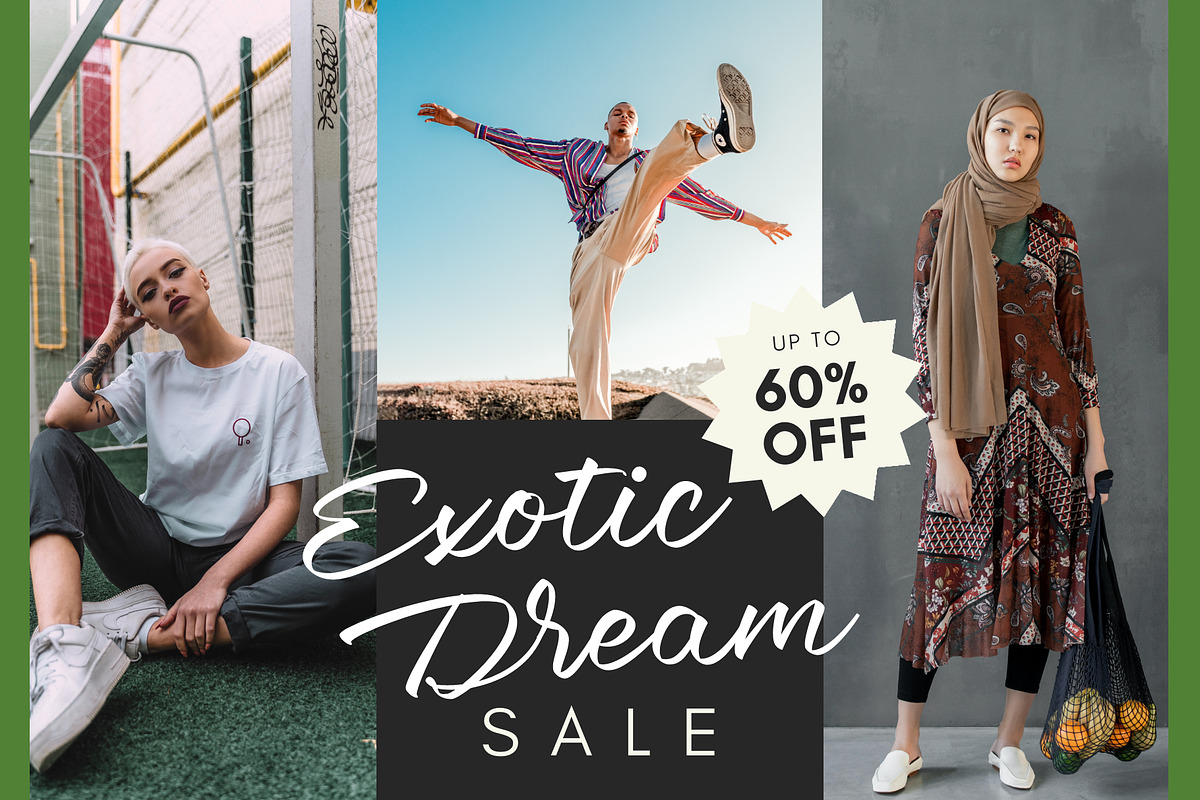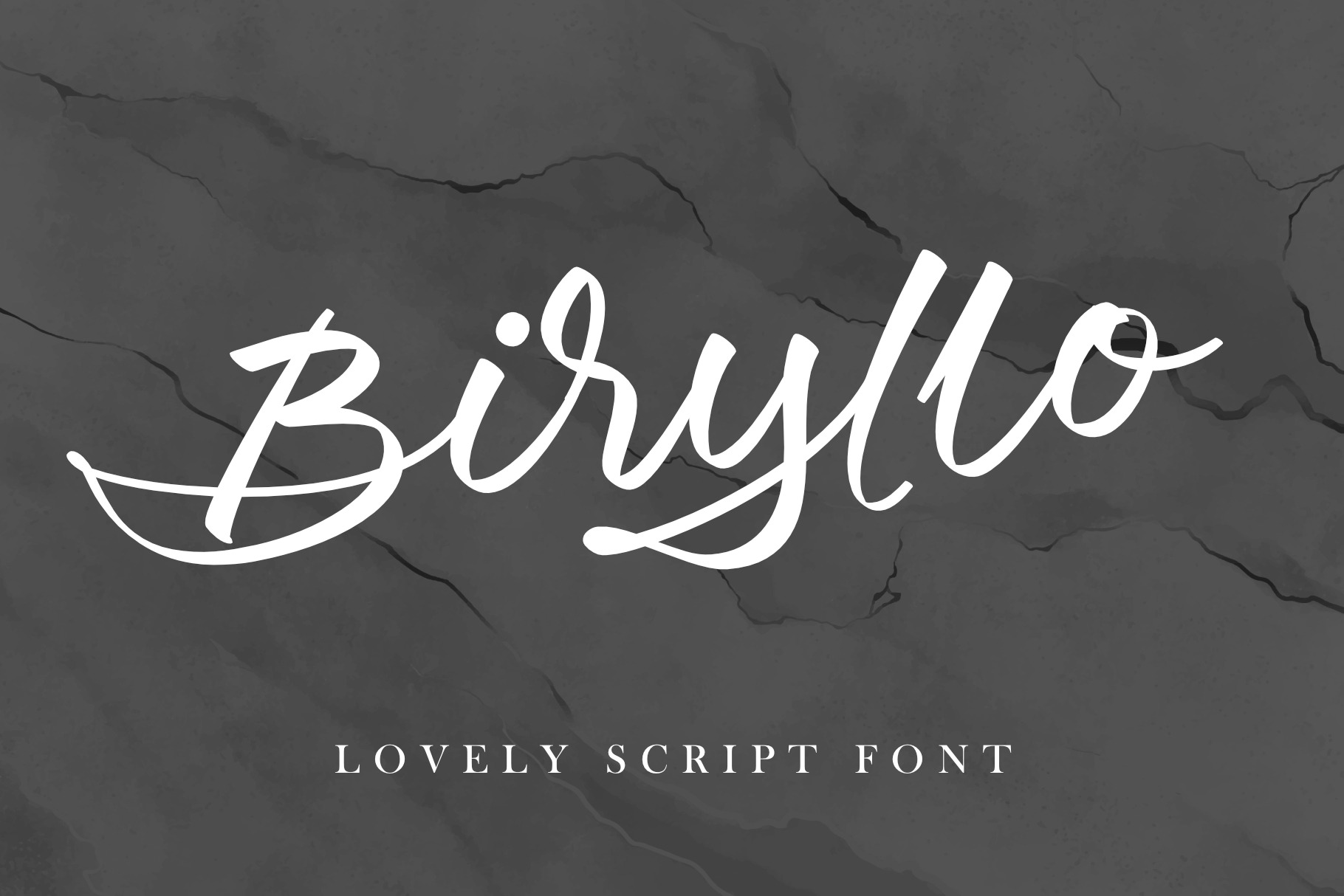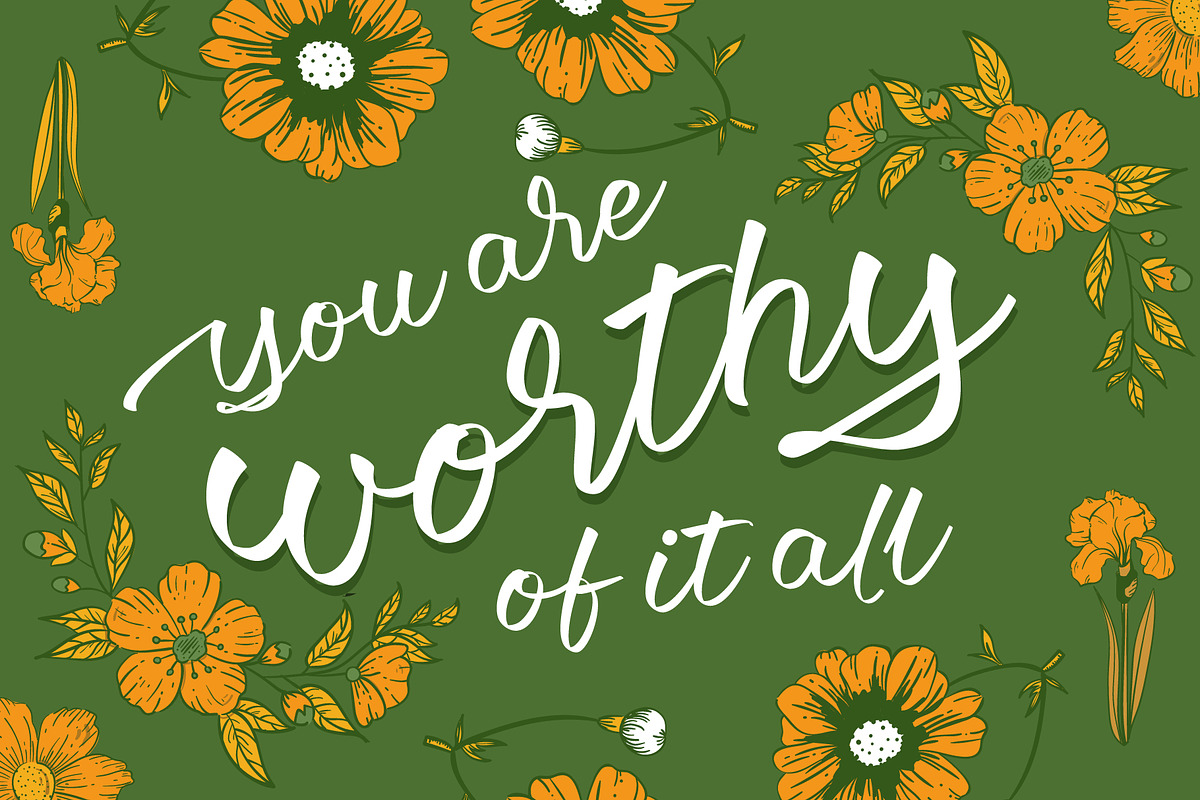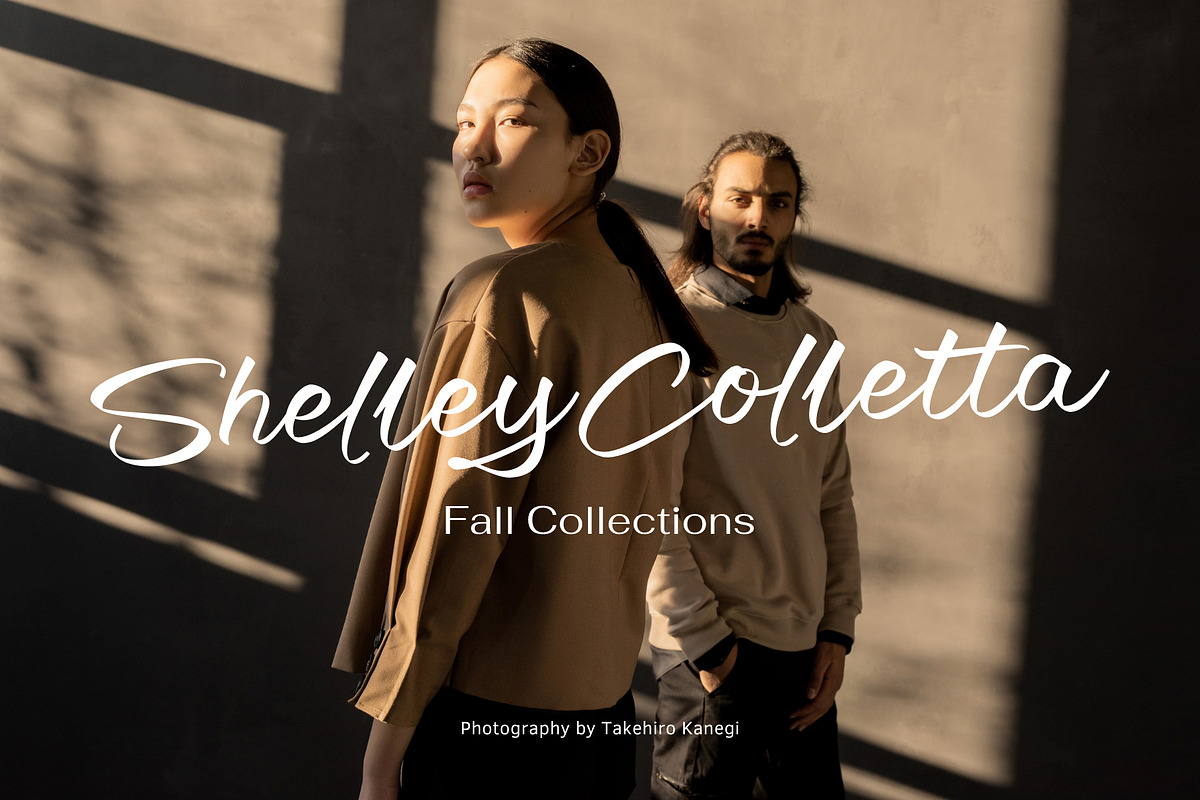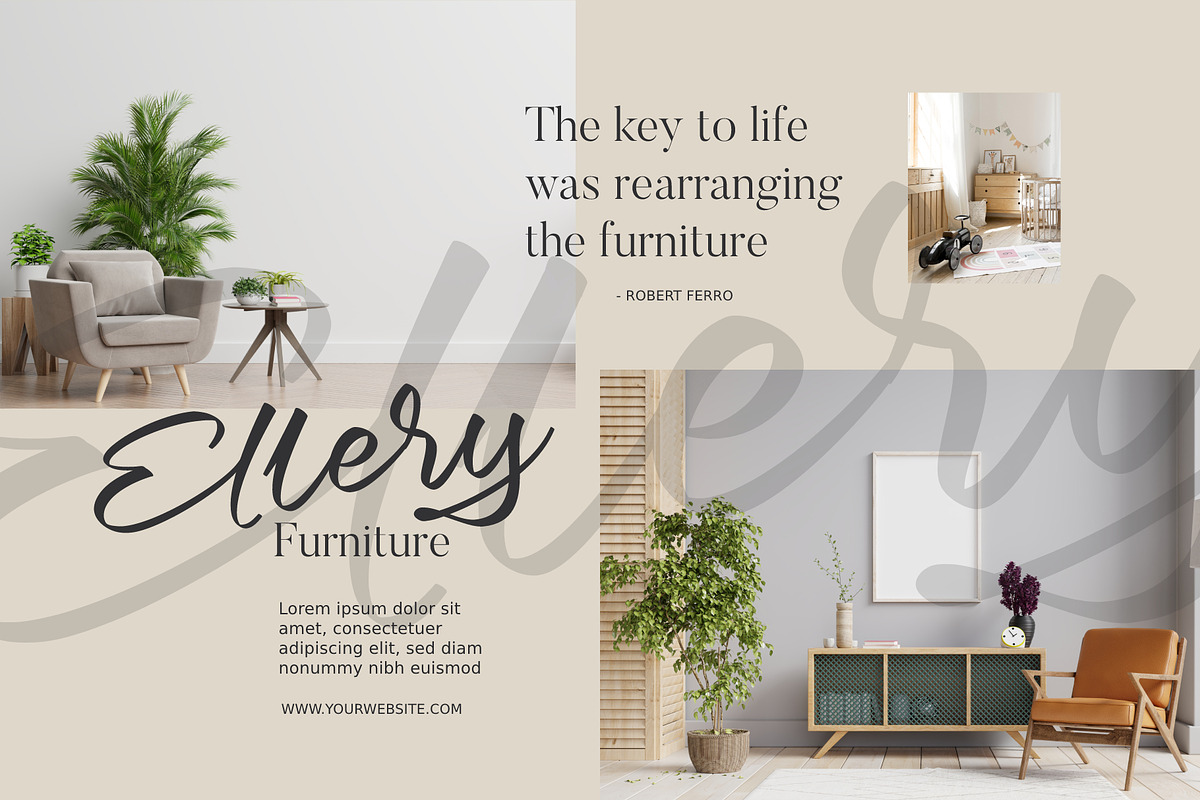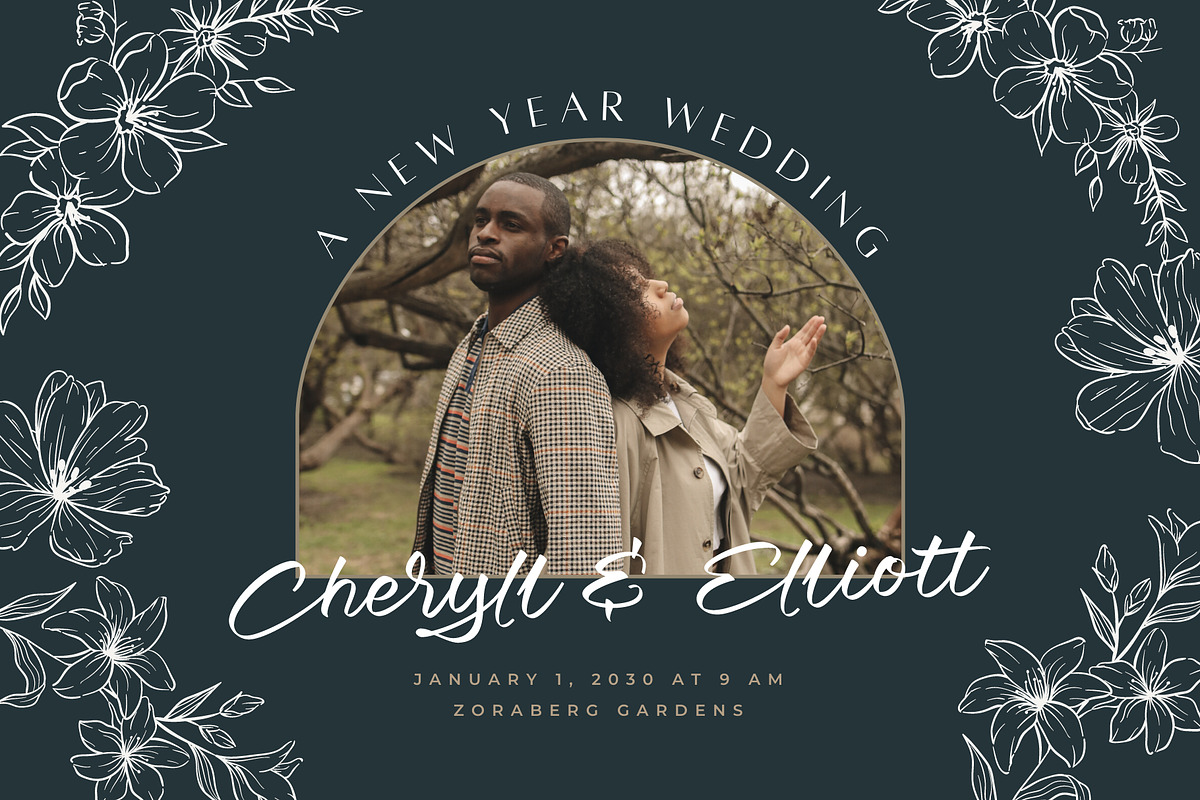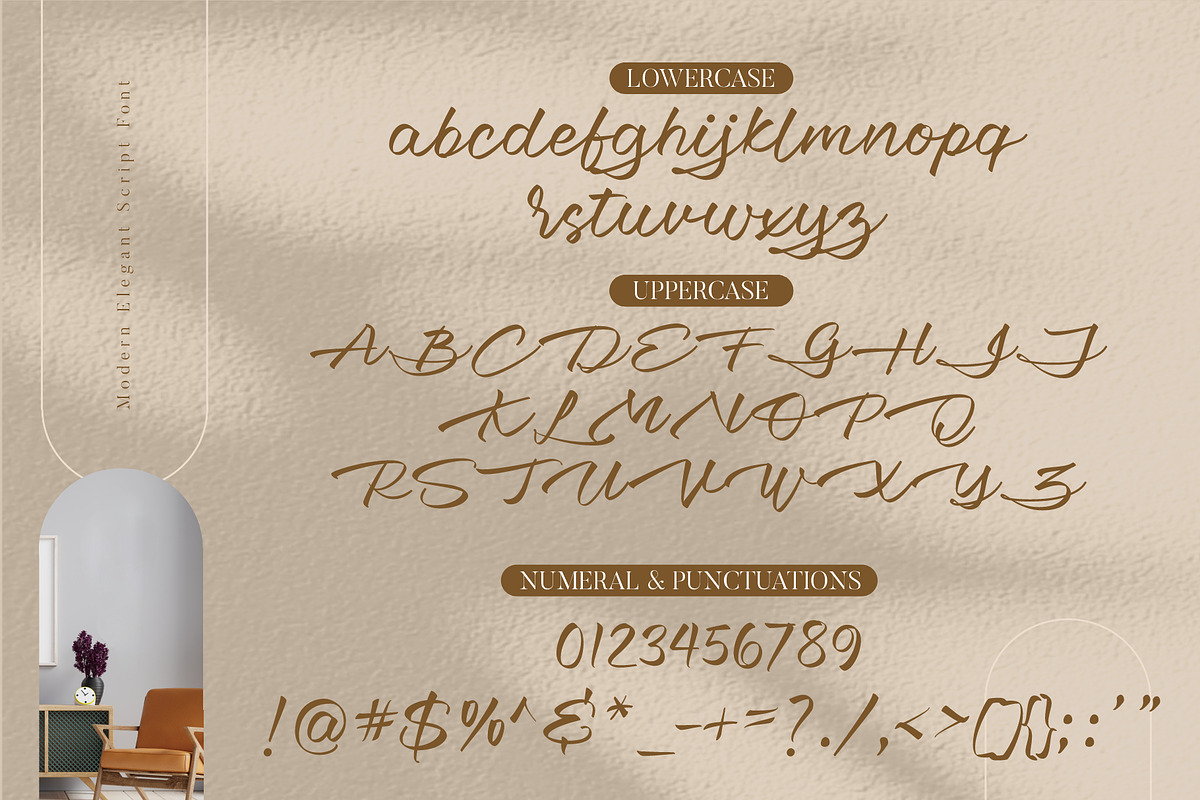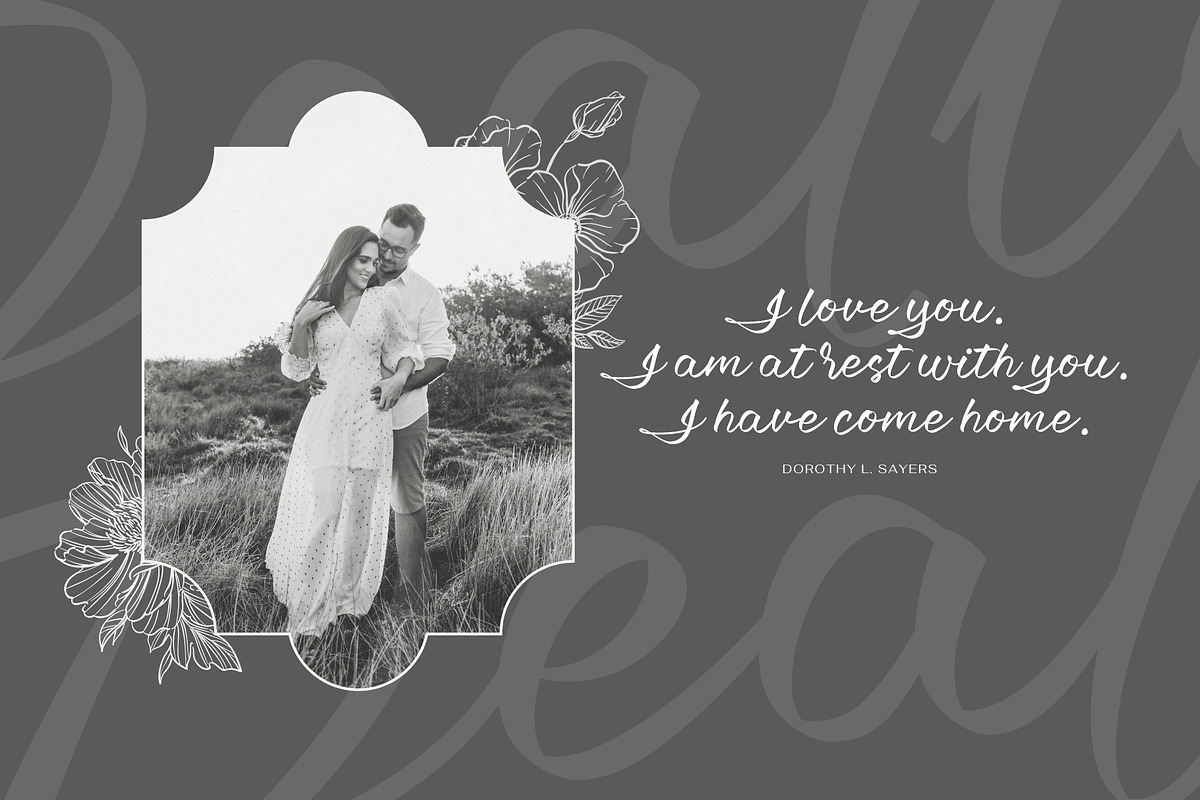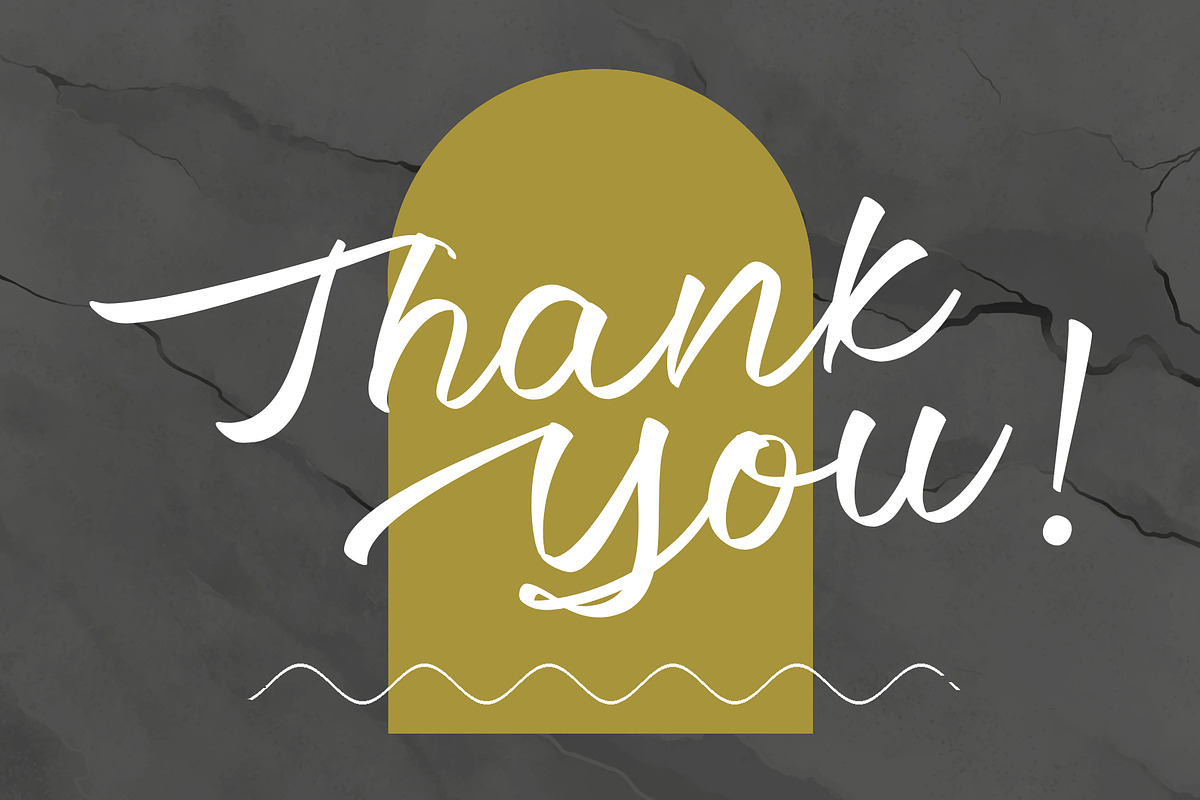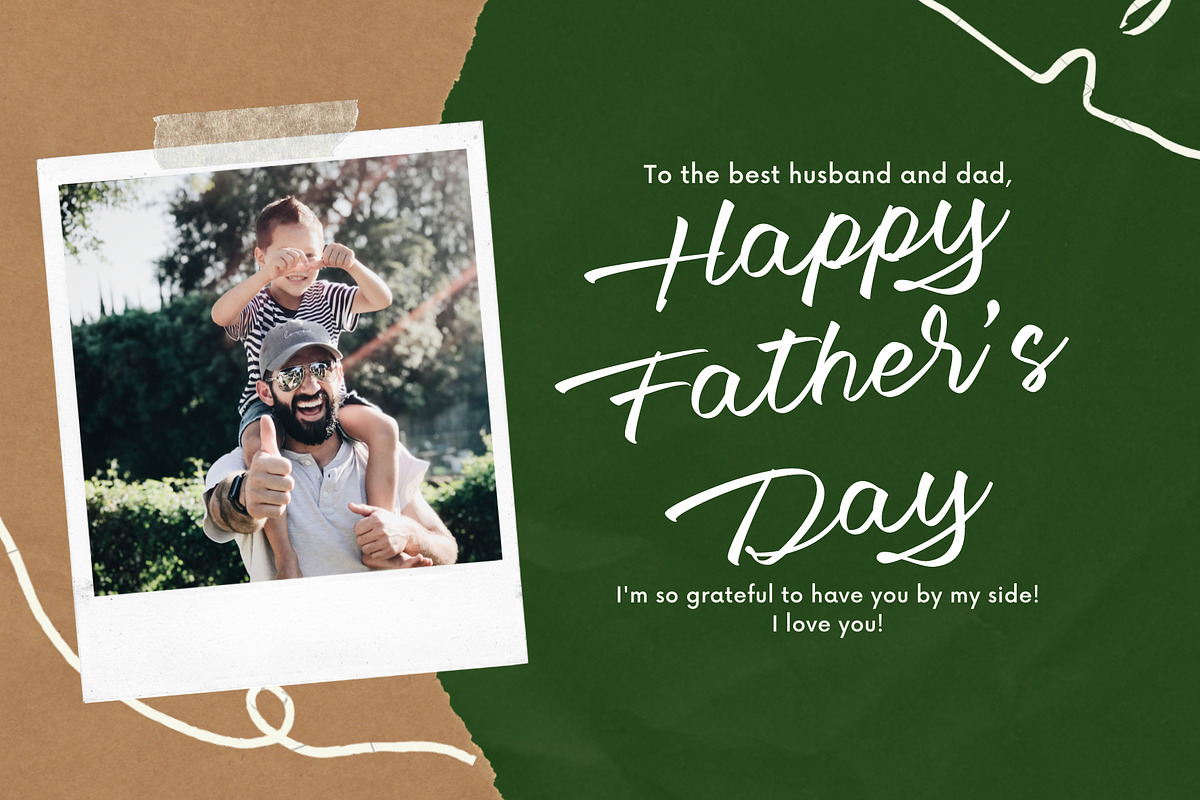
Biryllo | Lovely Script Font
I call this lovely typeface as Biryllo. A lovely & beautiful yet elegant script font that flow smoothly and elegantly on any design you are working on. Awesome for designing any design such as logo, album covers, quotes, greeting cards, book covers, wedding design, social media posts and more.
- Full set of uppercase and lowercase letters
- Multilinguals